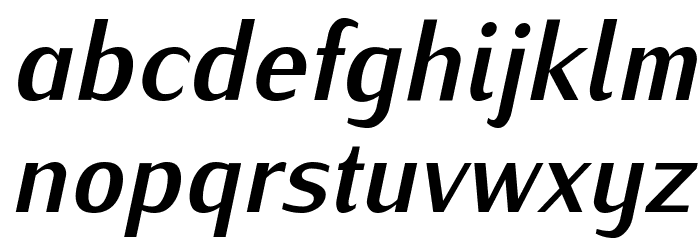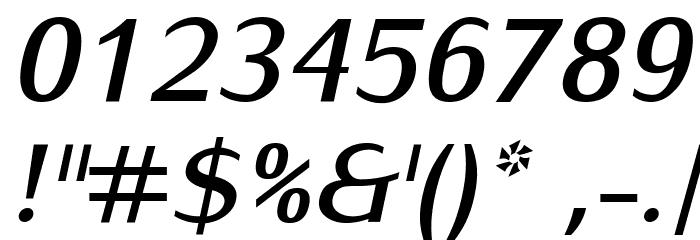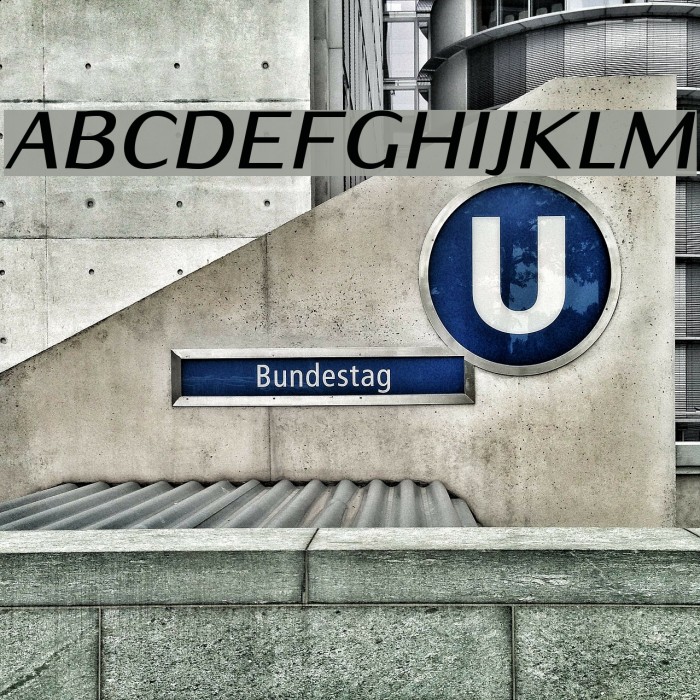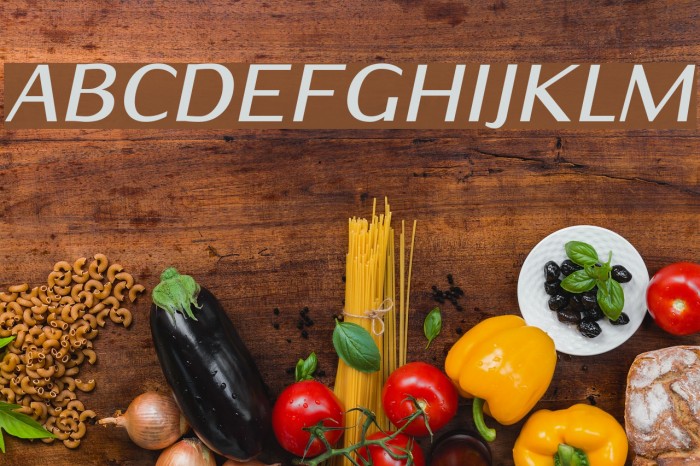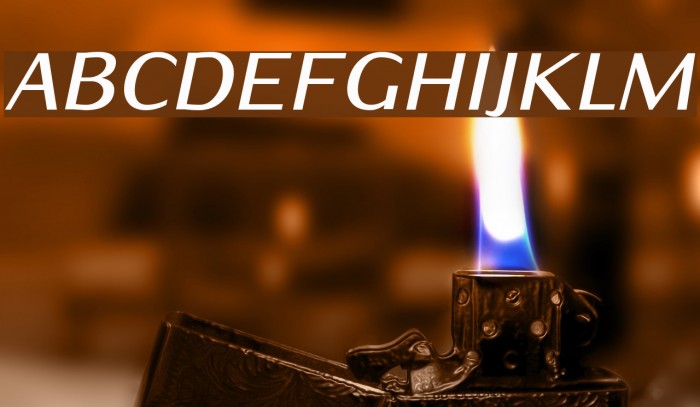
Iwona-BoldItalic Font
This font features a bold and italicized style, combining the strength of bold lettering with the dynamic slant of italics. The characters are well-defined with a slight forward tilt, giving a sense of motion and elegance. Uppercase letters maintain a consistent height, while lowercase letters are slightly rounded, enhancing readability. The numerals are clear and distinct, matching the overall bold aesthetic. Special characters are crafted with precision, ensuring they complement the alphabetic characters seamlessly. This font is versatile, suitable for various design applications.
A bold, italicized font with a dynamic and elegant style.
- Proposed Projects: Ideal for branding, advertising, headlines, and editorial design where a bold and stylish impact is desired.
- Use Case: Headlines, Logos, Branding